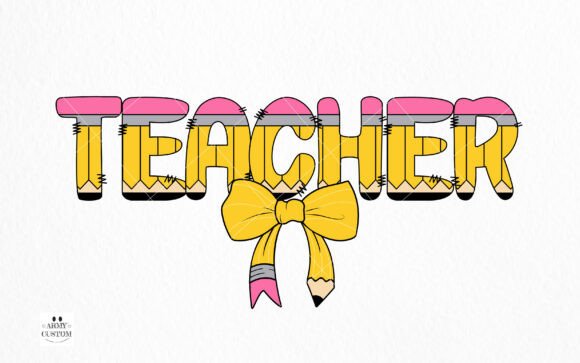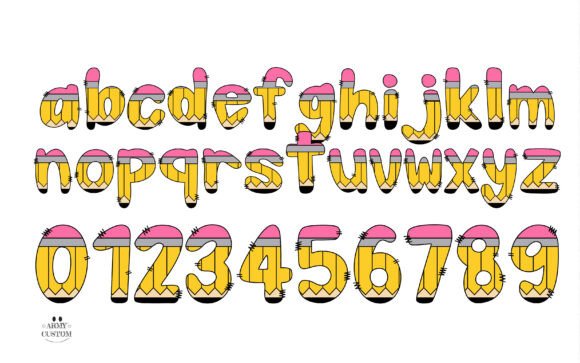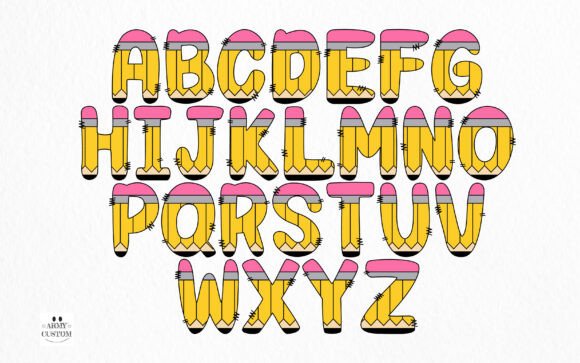
Get Ready for a Creative Revival with Back to School Pencil Font
Do you remember the excitement of rummaging through your school supplies on the first day of a new semester? The thrill of unwrapping a fresh set of pencils, markers, and colorful pens? It’s a feeling that never truly fades away, especially when it comes to unleashing our creativity. For designers and crafty enthusiasts, the search for the perfect font is an ongoing quest, and today, we’re excited to introduce a game-changing addition to your toolkit: Back to School Pencil Font.
This bold, colorful font is more than just a stylish typeface – it’s an innovative tool that elevates your creative projects to the next level. Whether you’re designing party invitations, blog banners, or personalized stationery, Back to School Pencil Font is the perfect companion to bring your artistic vision to life. With its captivating charm and vibrant energy, this font is sure to leave a lasting impact on your audience.
Key Features of “Back to School Pencil Font”
- Unique Hand-Drawn Design: The font features a distinctive hand-drawn design, reminiscent of pencil sketches, perfect for creating a playful and educational atmosphere.
- Character Set: The font includes a comprehensive set of characters, including uppercase and lowercase letters, numbers, and punctuation marks, as well as a range of special characters and symbols.
Back to School Pencil Font Review
Overall, I think the Back to School Pencil Font is a cute and playful addition to any design project. ✨ The rounded edges and imperfect texture evoke a sense of nostalgia and whimsy, making it perfect for a school-themed design or a project that requires a fun and lighthearted tone.
The font is highly customizable, with a wide range of font weights and styles available. This makes it easy to use across different design projects, from logos to social media graphics. ✨ The font also includes a variety of international characters, making it a great option for global design projects.
- Rounded edges and imperfect texture for a playful, nostalgic feel
- Highly customizable font weights and styles
- International character support
- May not be suitable for formal or professional designs
- Lack of bold or condensed font weights
- May require additional formatting for optimal readability
Overall, I would recommend the Back to School Pencil Font for design projects that require a fun and playful tone. While it may not be suitable for all design projects, it’s a great option for schools, kids’ brands, or any project that needs a lighthearted feel.
The Back to School Pencil Font is perfect for creating playful and educational content, such as:
1. Back to school invitations and announcements.
2. Educational posters and flyers.
3. Kids’ party decorations and materials.